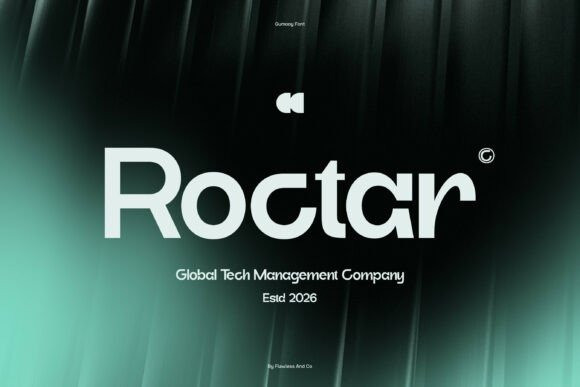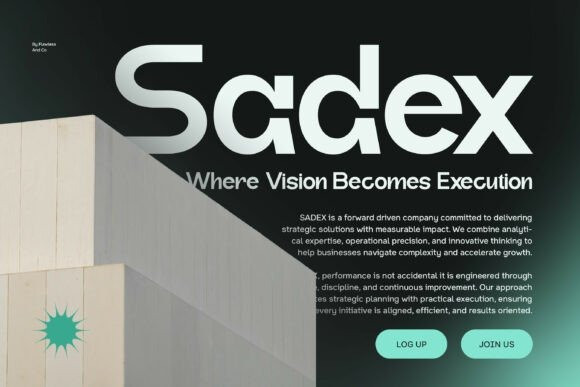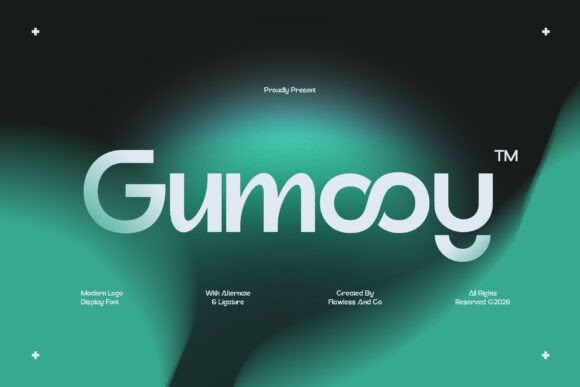
Gumooy Font
Gumooy Font is a modern sans display font designed to deliver a clean, and contemporary typographic style. With its smooth lines, balanced proportions, and modern letterforms, Gumooy creates a strong visual presence that works perfectly for eye-catching headlines and creative branding. Crafted with a modern aesthetic, Gumooy offers excellent readability while maintaining a stylish and distinctive display character. Its versatile design makes it suitable for a wide range of creative projects, from digital graphics to print media.